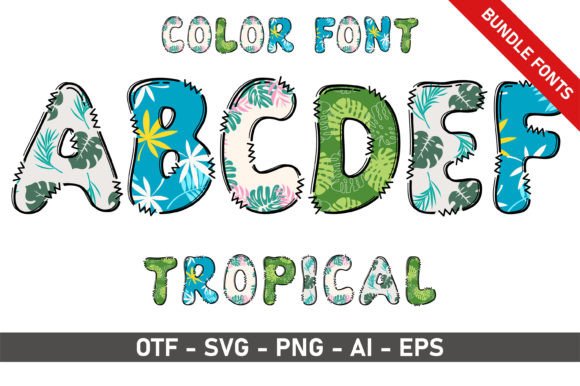
Journey into a world of enchanting typography with the Tropical Bundle Font, a vibrant collection of fonts that will ignite your creativity and transform your designs into captivating masterpieces. Step into a realm where letters dance with joy, colors burst with life, and imagination takes flight.
Immerse yourself in a symphony of styles, from playful and whimsical to elegant and sophisticated. Each font in this collection is meticulously crafted to capture the essence of joy and wonder, inviting you to weave tales of adventure, friendship, and dreams come true.
Let your imagination run wild as you explore the boundless possibilities of the Tropical Bundle Font. Create eye-catching logos that pop off the page, design invitations that transport guests to a world of whimsy, or craft social media posts that sizzle with personality.
With the Tropical Bundle Font, you'll never be short of inspiration. Whether you're designing for children's books, posters, greeting cards, or any other project that demands a touch of magic, these fonts will effortlessly elevate your creations to new heights.
But don't just take our word for it. Step into the realm of the Tropical Bundle Font and experience the magic for yourself. Let your creativity soar, let your imagination run wild, and let these fonts ignite the spark of brilliance within you.